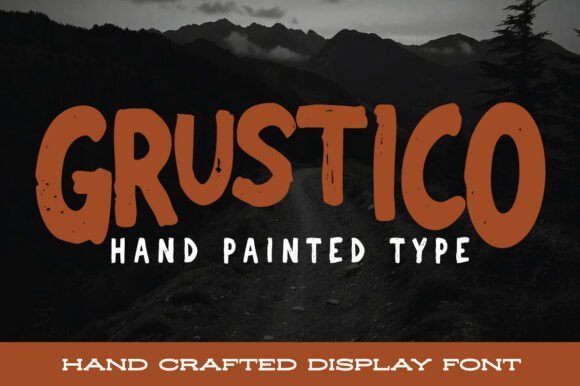
Unleash the Power of Imperfection with Grustico Font
As a designer, have you ever stumbled upon an old, worn-out sign that sparks inspiration? Maybe it was the faded letters, the chipped paint, or the weathered wood that caught your eye. Whatever it was, you couldn’t help but feel drawn to its unique, imperfect charm. That’s exactly what the Grustico Font is all about – capturing the essence of that rugged, vintage feel and bringing it to life in your designs.
Perfect for adding a touch of grit and personality to your posters, logos, and merchandise, Grustico Font is a game-changer for designers who want to make a statement. Its bold, hand-brushed strokes and distressed texture give your designs a beautifully imperfect, handcrafted look that demands attention. Whether you’re aiming for a retro aesthetic or a bold, edgy statement, Grustico Font delivers with its dynamic and expressive brush style.
Grustico Font Key Features
- Font Family: Grustico Font is a unique, hand-drawn font family that includes 4 styles: Regular, Italic, Bold, and Bold Italic.
- Character Set: The font family includes a wide range of characters, including Latin, Cyrillic, and Greek alphabets, as well as punctuation and symbols.
- Size: The font family is available in 4 weights: Light, Regular, Medium, and Bold, offering flexibility for various design applications.
- Unique Characteristics: Grustico Font features a distinctive, hand-drawn style with subtle imperfections, adding a touch of warmth and personality to any design.
Grustico Font Review
I recently had the chance to work with Grustico Font, and I must say it’s a unique addition to any design project. Here’s my honest take on this font.
- Distressed look: Grustico Font has a beautiful distressed look that can add a touch of elegance and sophistication to any design.
- Versatility: This font is incredibly versatile and can be used in a wide range of designs, from modern to vintage.
- Legibility: Despite its distressed look, Grustico Font remains highly legible, making it perfect for body text or headings.
- Overuse: Grustico Font’s distressed look can be overused, leading to a sense of fatigue and monotony.
- Limited expressiveness: While the font is versatile, it may not be the best choice for designs that require a lot of expressiveness or emotional depth.
Overall, I think Grustico Font is a great addition to any designer’s toolkit. Its unique look and versatility make it perfect for a wide range of designs. However, it’s essential to use it judiciously to avoid overuse and maintain its impact.
Grustico Font is ideal for creating vintage or distressed text effects. Use it to add a unique touch to your designs, such as:
- Old-school posters and flyers
- Distressed text overlays for photography
- Handwritten-style journaling and quotes